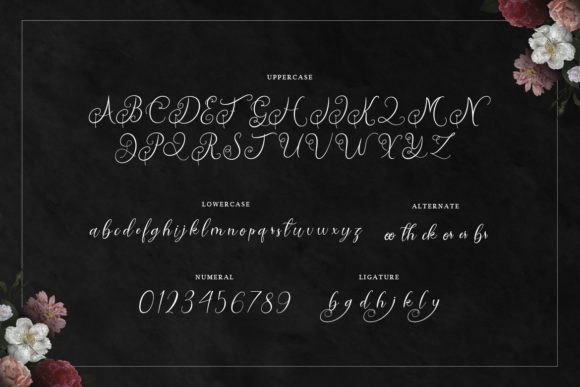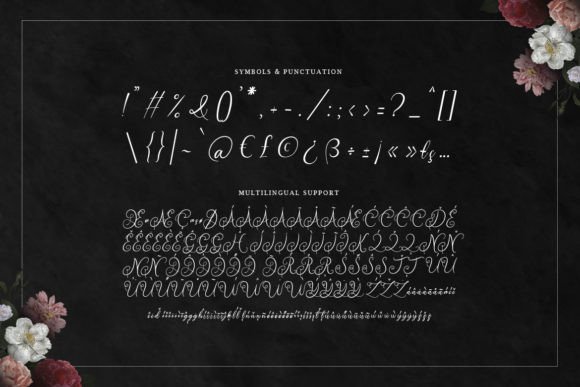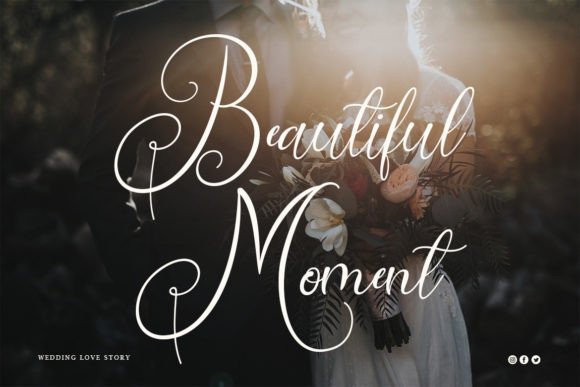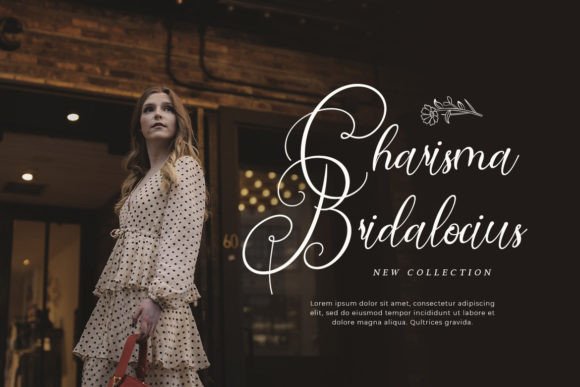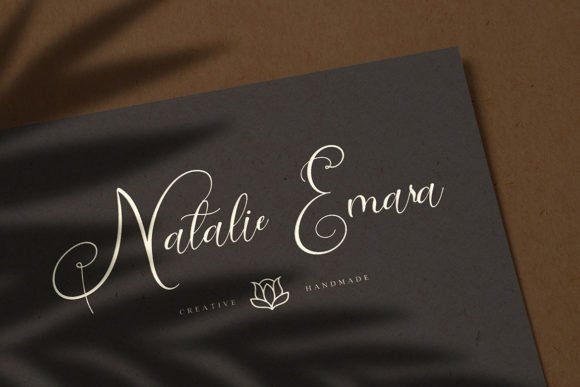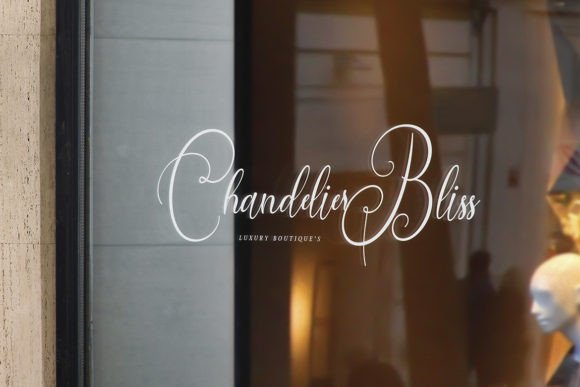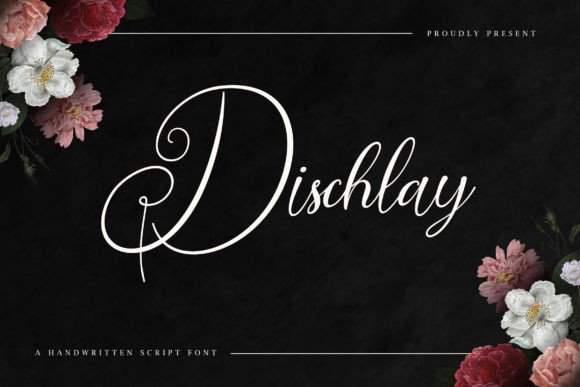
Introducing Dischlay Font: Elevate Your Designs with Delicate Handwritten Style
Are you on the hunt for a font that adds a touch of elegance and sophistication to your designs? Look no further than Dischlay Font, a delicate and stylish handwritten script font that’s perfect for a wide range of creative projects. From branding materials and quotes to book covers, logos, posters, and more, Dischlay Font is the ideal choice for designers and crafters seeking to make a lasting impression.
What Makes Dischlay Font So Special?
Dischlay Font boasts a unique, handwritten aesthetic that’s both refined and eye-catching. Its delicate strokes and fluid connections create a sense of movement and fluidity, making it perfect for designs that require a touch of personality and whimsy. Whether you’re working on a logo, brochure, or social media graphic, Dischlay Font is sure to elevate your design and leave a lasting impression on your audience.
One of the best things about Dischlay Font is its versatility. Its elegant, cursive style makes it suitable for a wide range of design applications, including:
• Branding Materials: Use Dischlay Font to create stunning brand identities, including logos, business cards, and letterheads.
• Quotes and Posters: Add a touch of sophistication to your inspirational quotes and posters with Dischlay Font’s elegant, handwritten style.
• Book Covers: Make your book cover stand out from the crowd with Dischlay Font’s unique and eye-catching aesthetic.
• Logos: Create a lasting impression with a custom logo designed using Dischlay Font.
• Social Media Graphics: Elevate your social media presence with stunning graphics designed using Dischlay Font.
Why Choose Dischlay Font?
So, why should you choose Dischlay Font for your next design project? Here are just a few reasons:
• Unique and Eye-Catching: Dischlay Font’s delicate, handwritten style is sure to turn heads and leave a lasting impression.
• Versatile: Use Dischlay Font for a wide range of design applications, from branding materials to book covers and social media graphics.
• Elegant and Sophisticated: Dischlay Font adds a touch of elegance and sophistication to any design, making it perfect for high-end brands and creative projects.
• Easy to Read: Despite its delicate style, Dischlay Font is surprisingly easy to read, making it perfect for designs that require a clear and concise message.
Tips for Using Dischlay Font
To get the most out of Dischlay Font, here are a few tips to keep in mind:
• Use it Sparingly: While Dischlay Font is stunning, it’s best used sparingly to avoid overwhelming the design. Use it for headings, titles, or key messages to create a lasting impression.
• Pair it with Other Fonts: Experiment with pairing Dischlay Font with other fonts to create a unique and eye-catching contrast.
• Adjust the Size: Don’t be afraid to adjust the size of Dischlay Font to create visual interest and hierarchy in your design.
In conclusion, Dischlay Font is a delicate and stylish handwritten script font that’s perfect for designers and crafters seeking to add a touch of elegance and sophistication to their designs. Its versatility, unique aesthetic, and ease of use make it an ideal choice for a wide range of creative projects. So why wait? Download Dischlay Font today and elevate your designs to the next level!